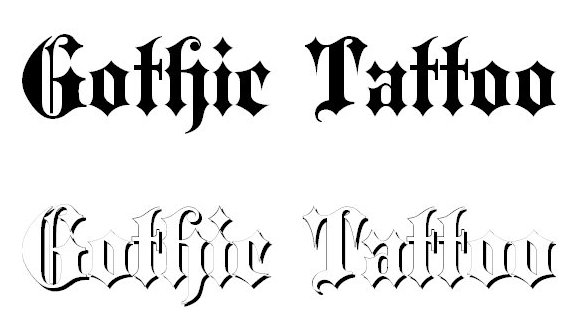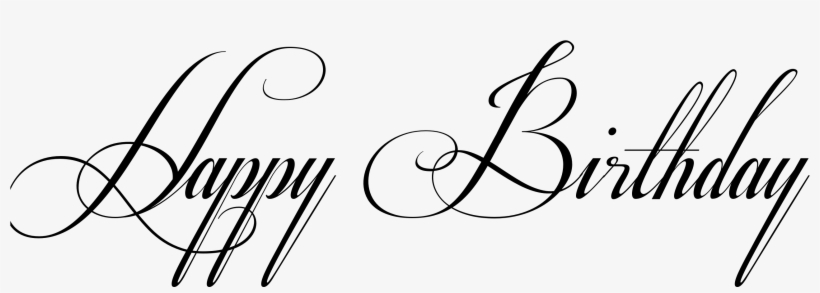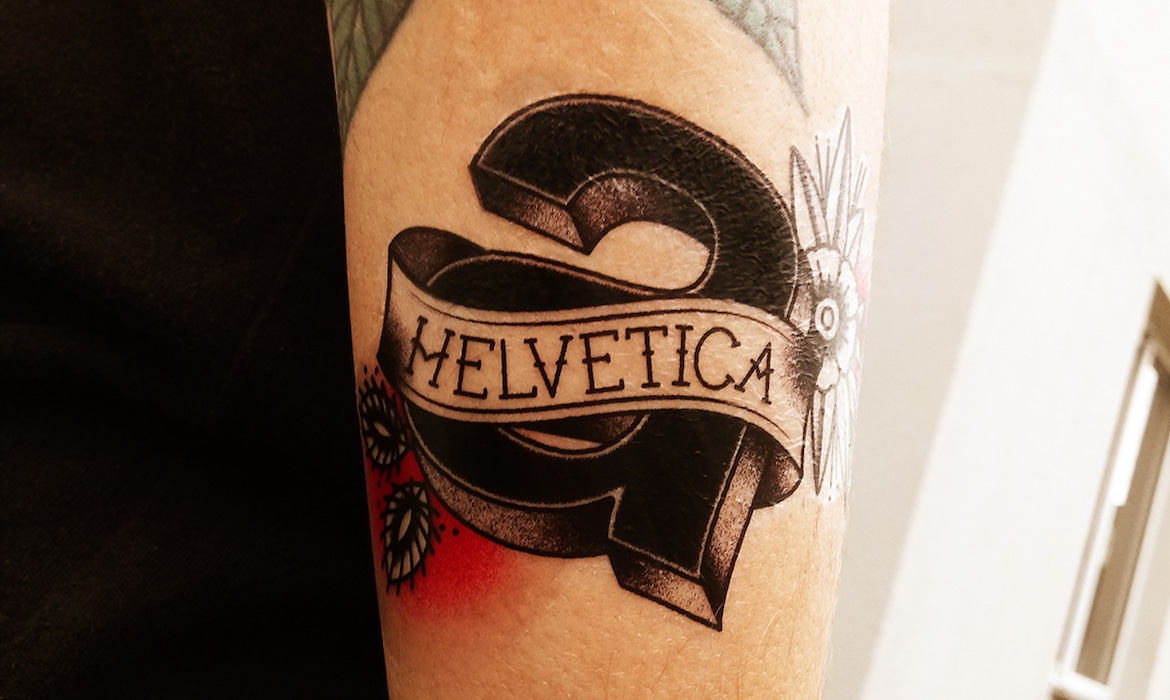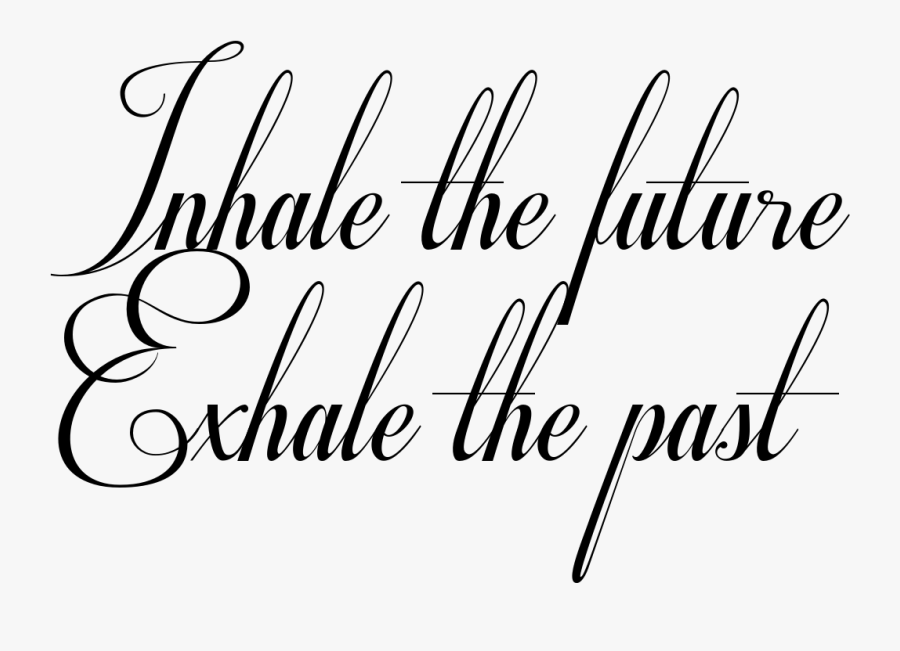
Tattoo Respect Font
Schwachsinn can be the ultimate font if you are looking to get a name tattooed on your skin.
Tattoo respect font. ‘Loyalty & Respect’ are written in bold Blackletter or Gothic lettering on this chest tattoo, adding to our catalogue of popular tattoo fonts ideas for guys. The tattoo design also bears an uncanny resemblance to the Celtic typeface that is the rave today. This is exceptional among tattoo font designs because it adopts two typefaces.
It is a massive back tattoo and is written in bold gothic style. Lemon Jelly by Billy Argel. Quick, efficient, and easy to use for all artists, no matter their drawing level!.
Ready to personalize and share in Facebook and Twitter. Even though Schwachsinn is a tough name to pronounce, the font is truly amazing with its uniformly thick brush strokes and the shadow effects to grant it an attention-grabbing character and serious appeal. Fortunately, we have many unique tattoo font styles for men and women, such as calligraphy, cursive, and traditional styles.